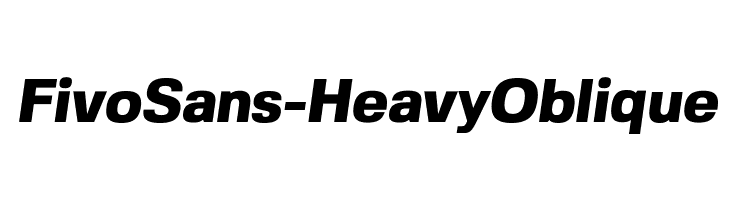
A bold, oblique sans-serif font with a modern and dynamic style.
A modern sans-serif font with an oblique slant, offering a clean and dynamic appearance.
A modern, oblique sans-serif font with a clean, geometric design.